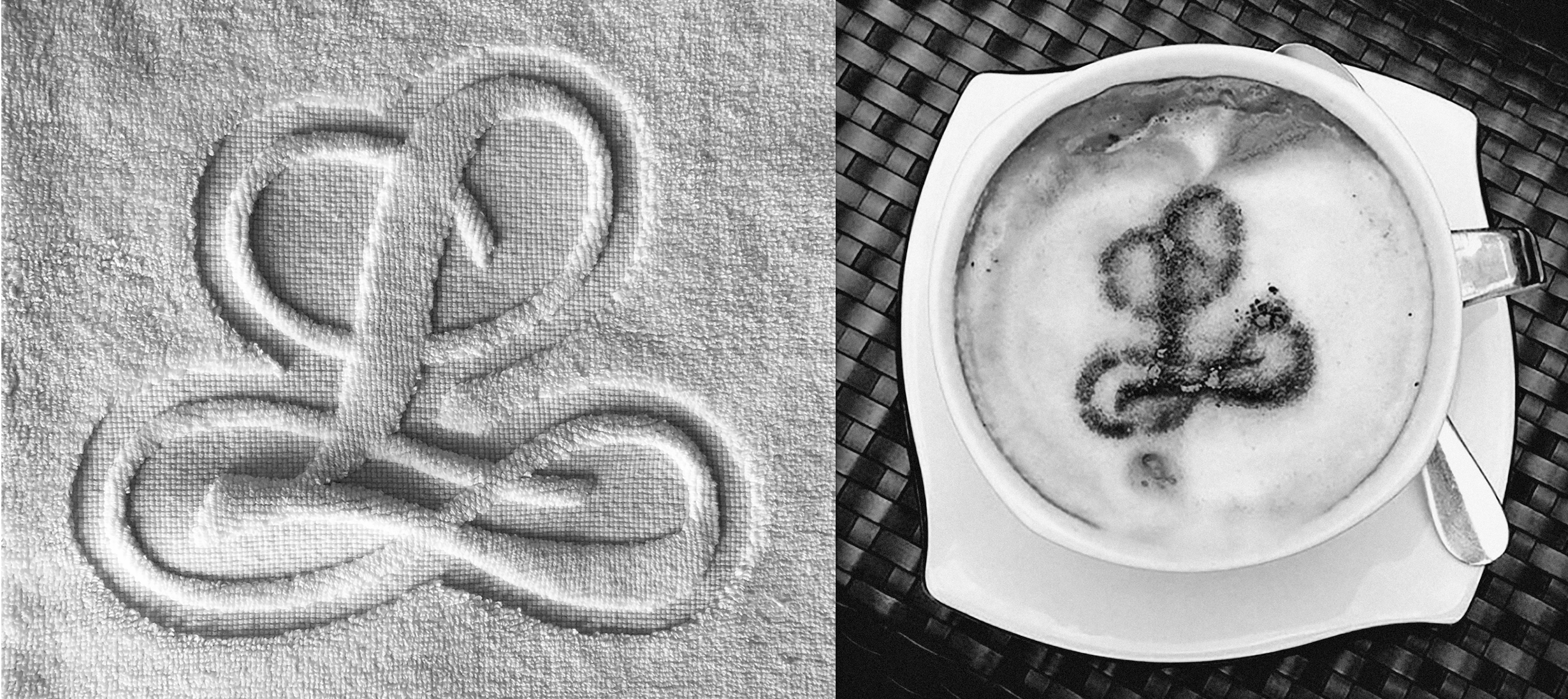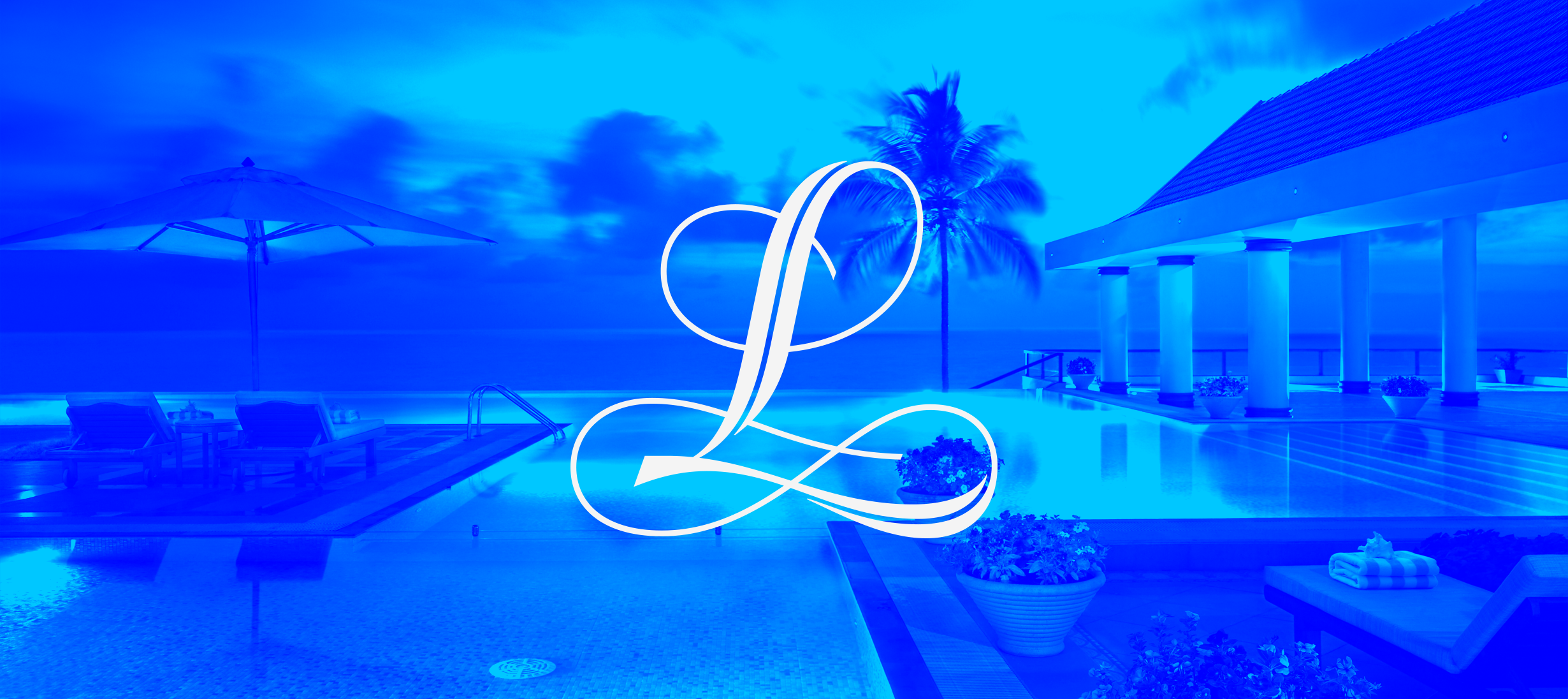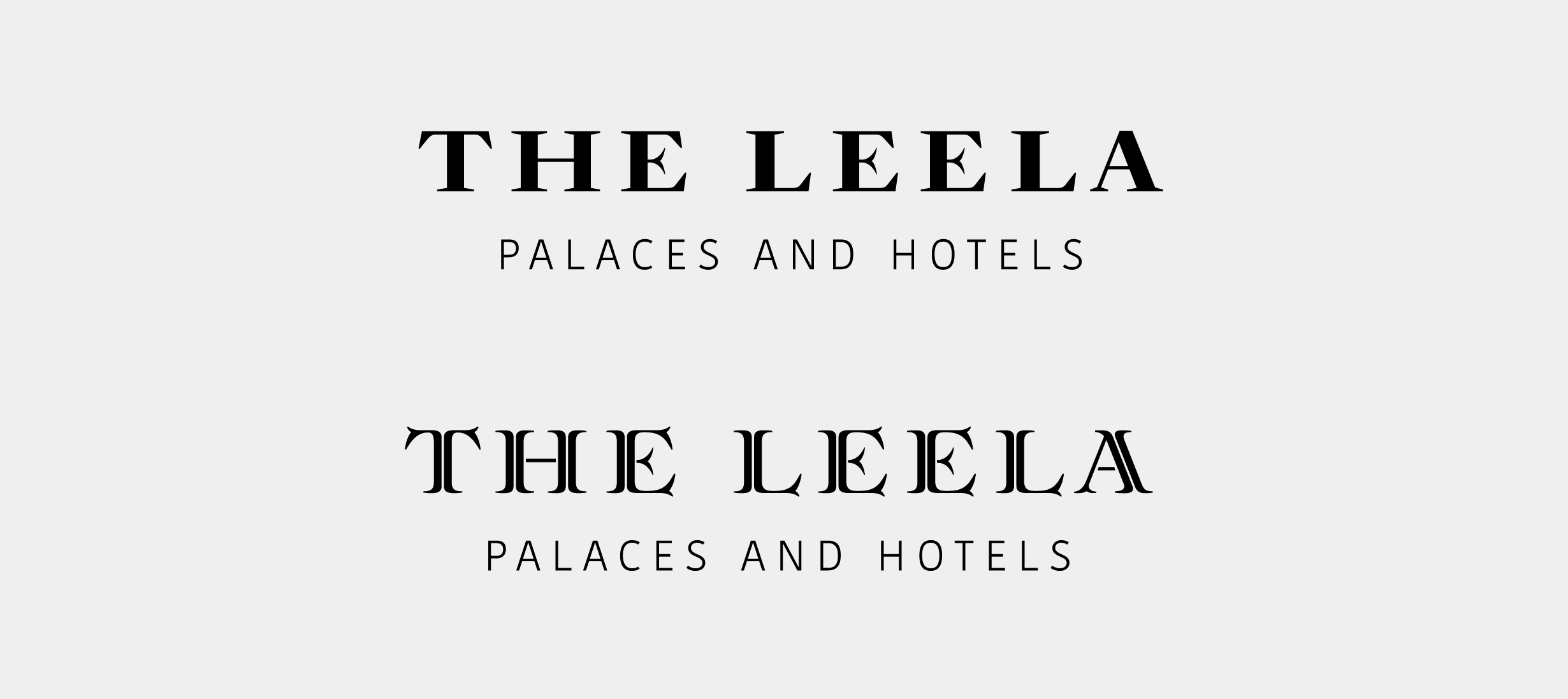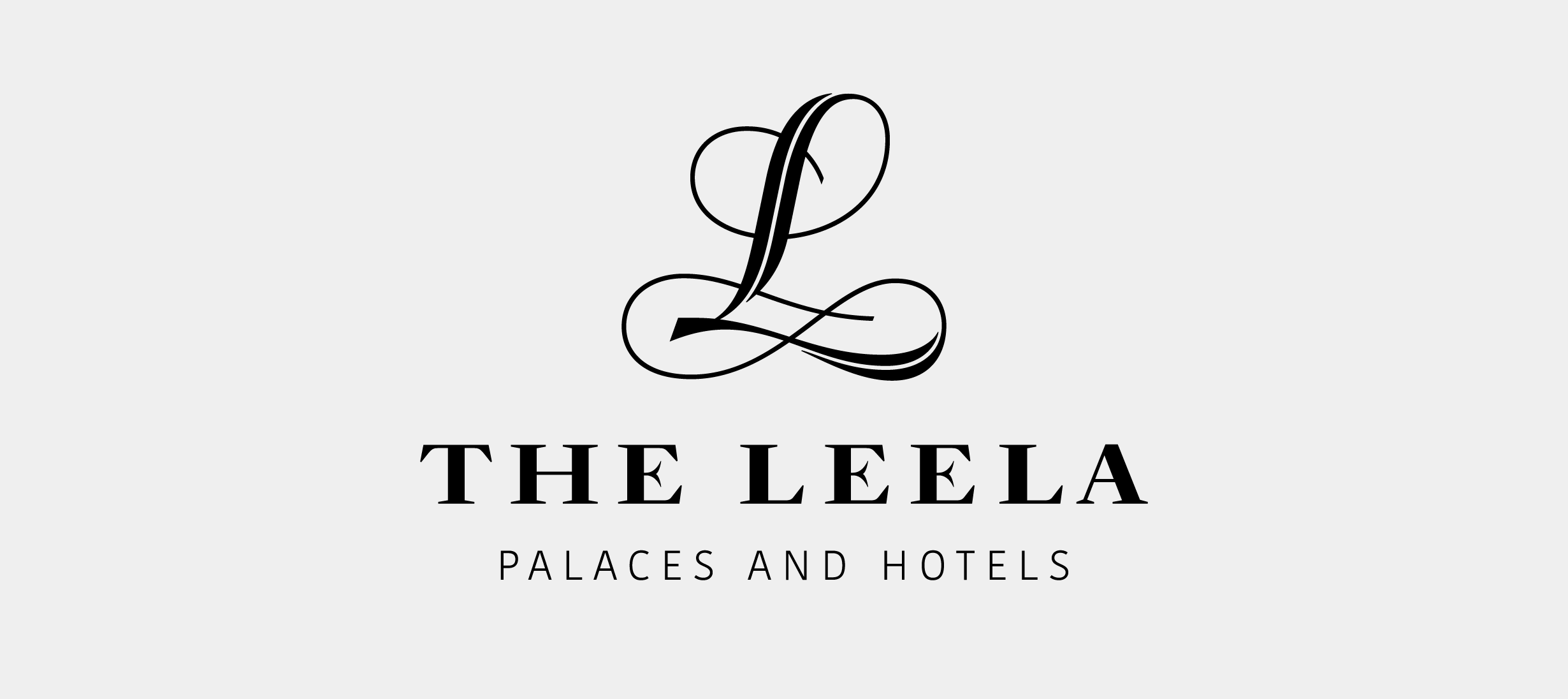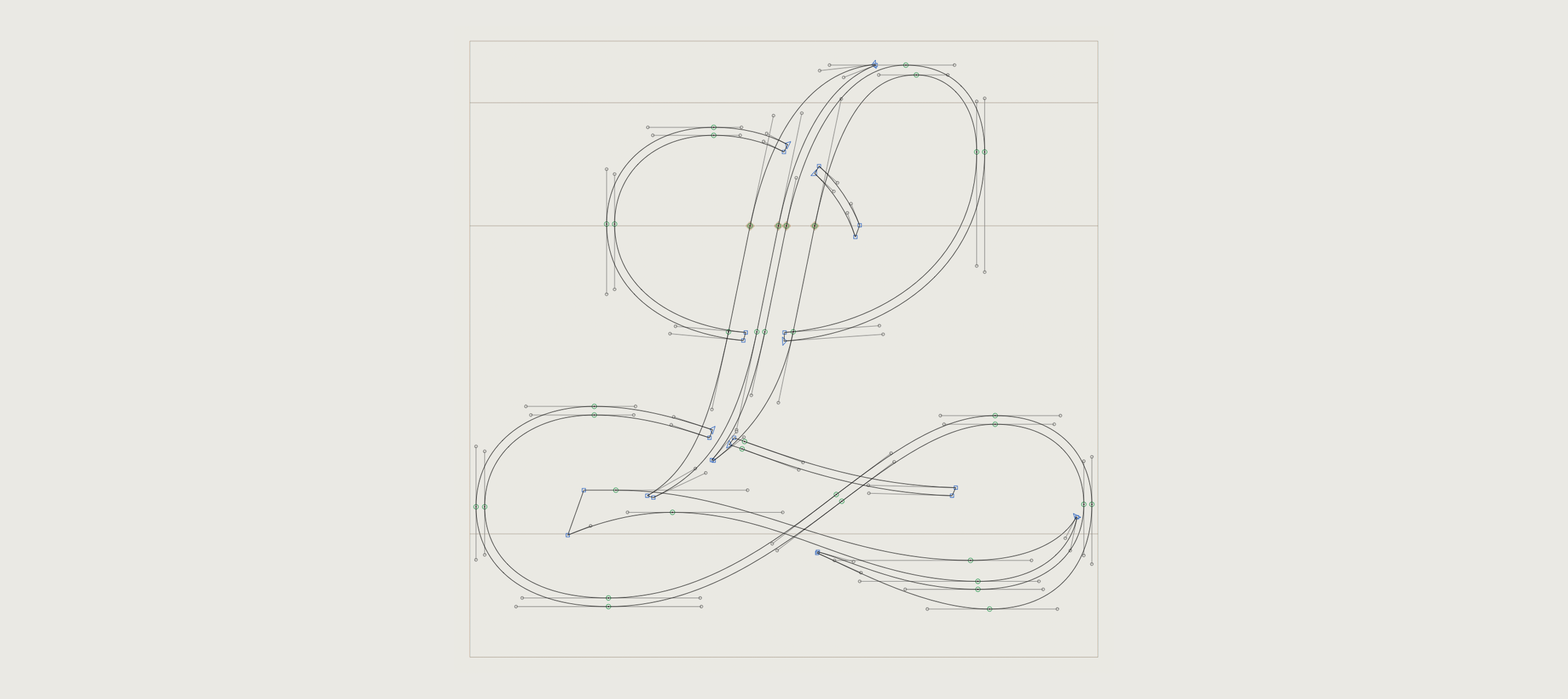
The Leela Palaces, Hotels and Resorts is an Indian luxury hotel group founded in 1987 by C. P. Krishnan Nair and owned by The Leela Group business conglomerate. They currently operates nine Palace, Hotel, and Resort locations across India, with four more opening in additional cities soon. The Leela is a client of Landor Associates, Paris, who in turn are part of the the worldwide Landor Associates branding agency network. Working together with Landor, ITF drew a custom lettering solution for the Leela’s brand mark and logotype, which was part of a comprehensive rebranding effort.
To set the name of your brand apart, it is rarely enough to simply rely on letters from a pre-existing font available to everyone. Despite the number of fonts in use by designers and branding agencies, it can still be difficult to find one with the exact letterforms your message requires. Custom lettering can create a mark as unique as your brand. Custom lettering even offers some technical benefits, too: as an image, rather than live text, a logo or a graphic mark will always appear as desired. It won’t ever be replaced in print or online by a system’s fall-back font.
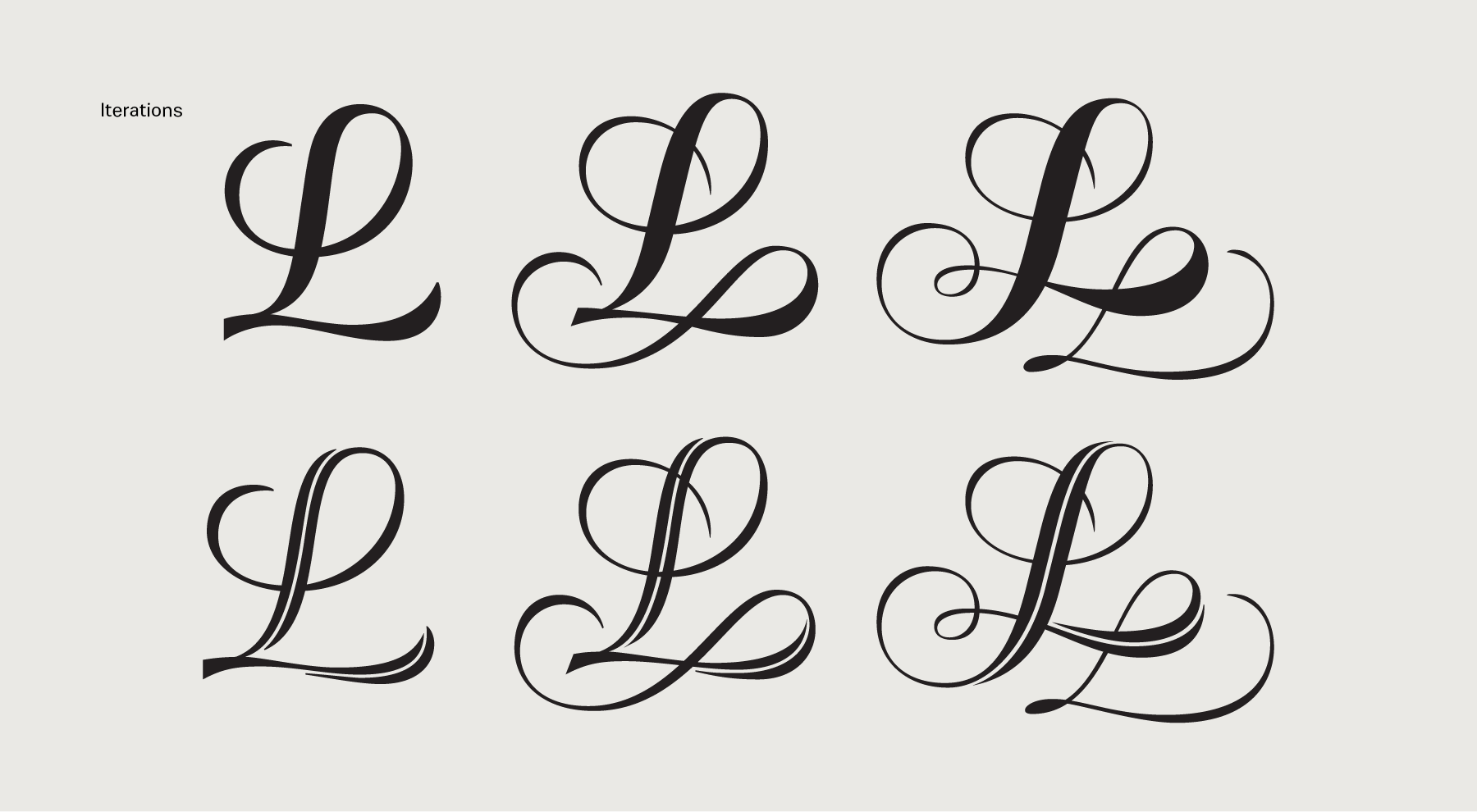
Providers of design solutions like ITF can ensure that a brand’s mark and corporate typefaces match one another. As providers of both the Leela’s logo and their brand typefaces, we were able to ensure that nothing in our mark would jar with their fonts. ITF delivered two versions of the Leela logo to Landor: an in-line version (the main mark) and a solid variant to be used in small sizes and material applications. The Leela now uses our mark and logotype on all their collateral. ITF’s Kohinoor superfamily is The Leela’s corporate typeface.
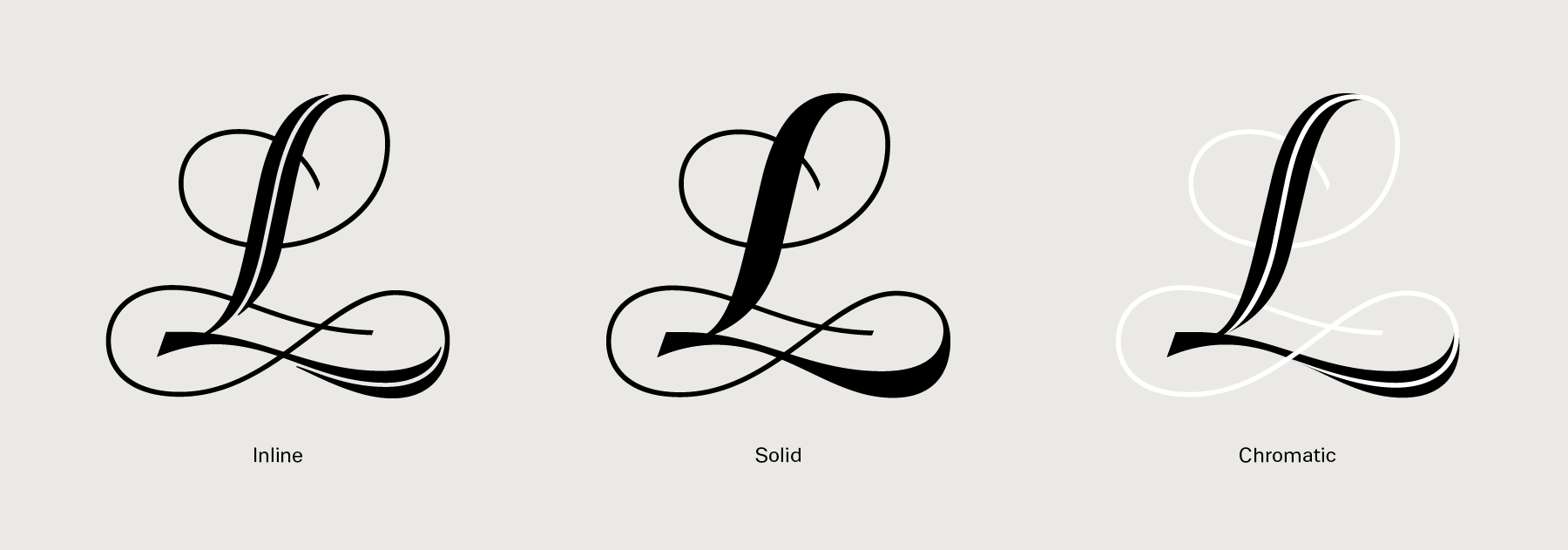
The Leela’s brand mark employs a large capital ‘L’, which we drew in an ornamented script style with visible stroke contrast and calligraphic flourishes. Placed below the ‘L’, the wordmark for ‘The Leela’ is drawn in formal, serif capitals. The style of these are reminiscent of the stately, decorative forms common in engraved lettering. Kohinoor, one of ITF’s most-popular sans serif families, offers a good contrast to the Leela’s logo marks. The clear difference between the Leela’s customised lettering and the Kohinoor typeface makes the lettering appear to be even more elegant.